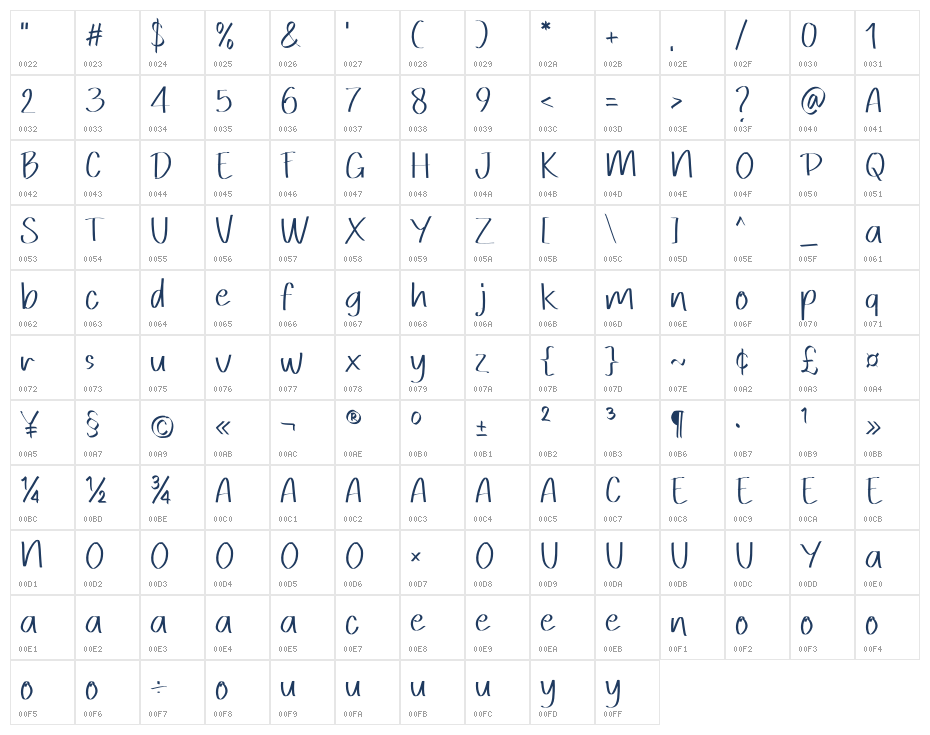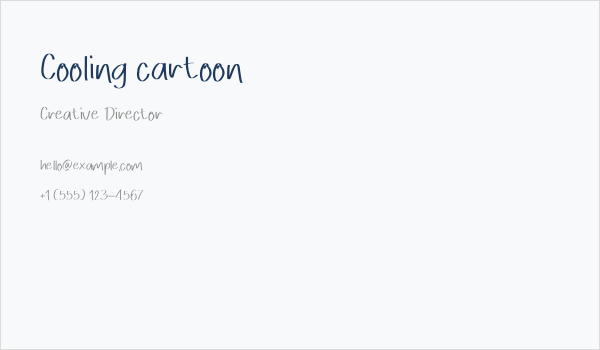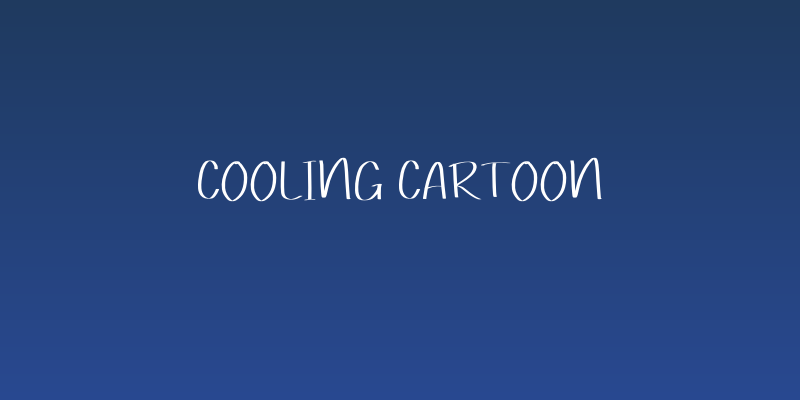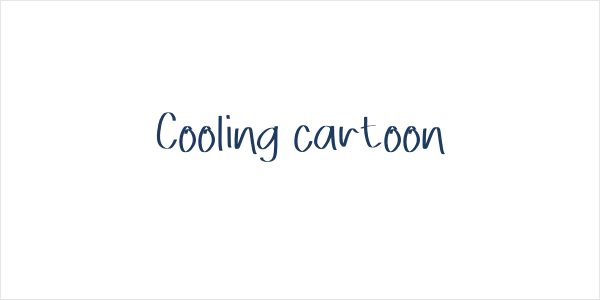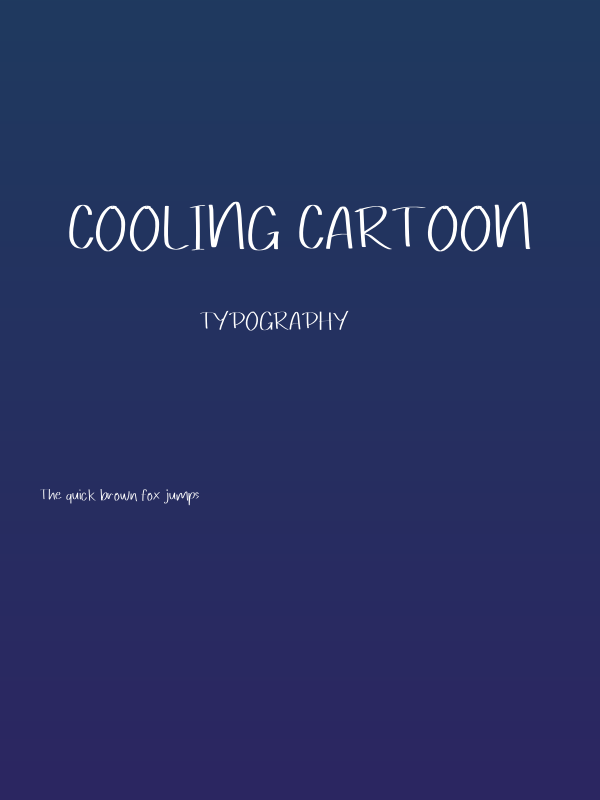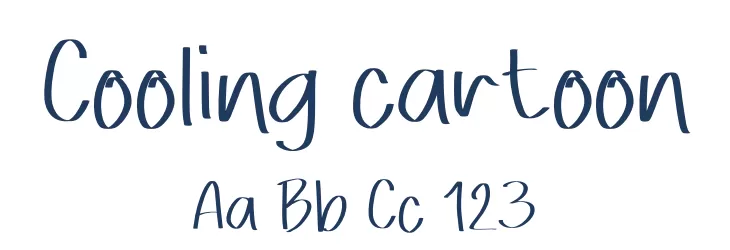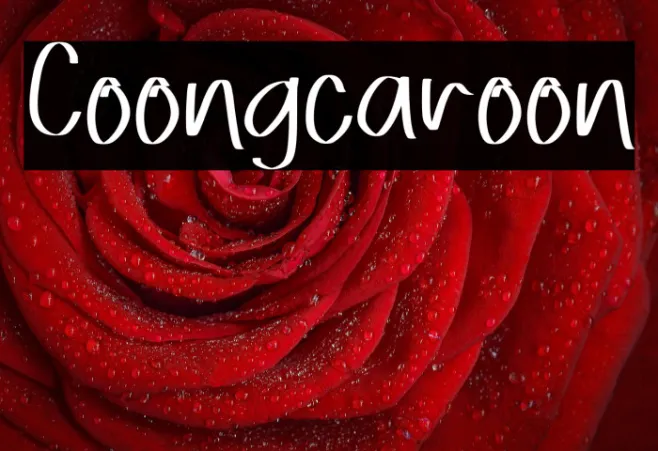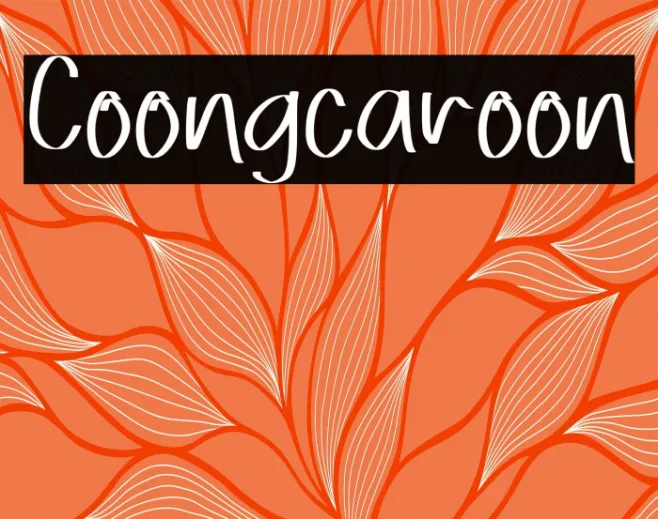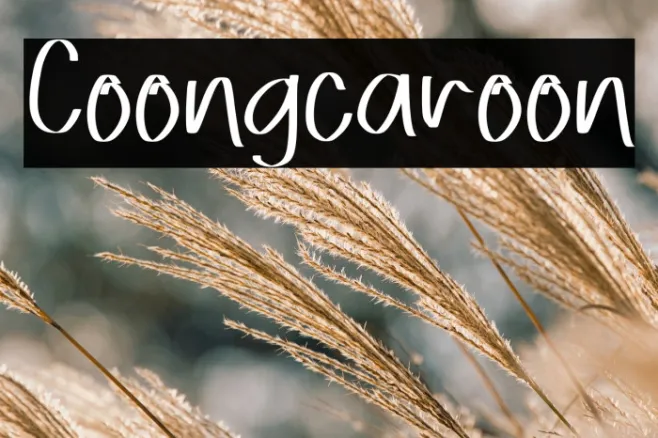
Cooling cartoon Font
Cooling cartoon Description
A casual, handwritten script font with a playful and informal style, featuring slightly irregular strokes and a friendly appearance.
| Overall Style | Casual, Friendly, Handwritten |